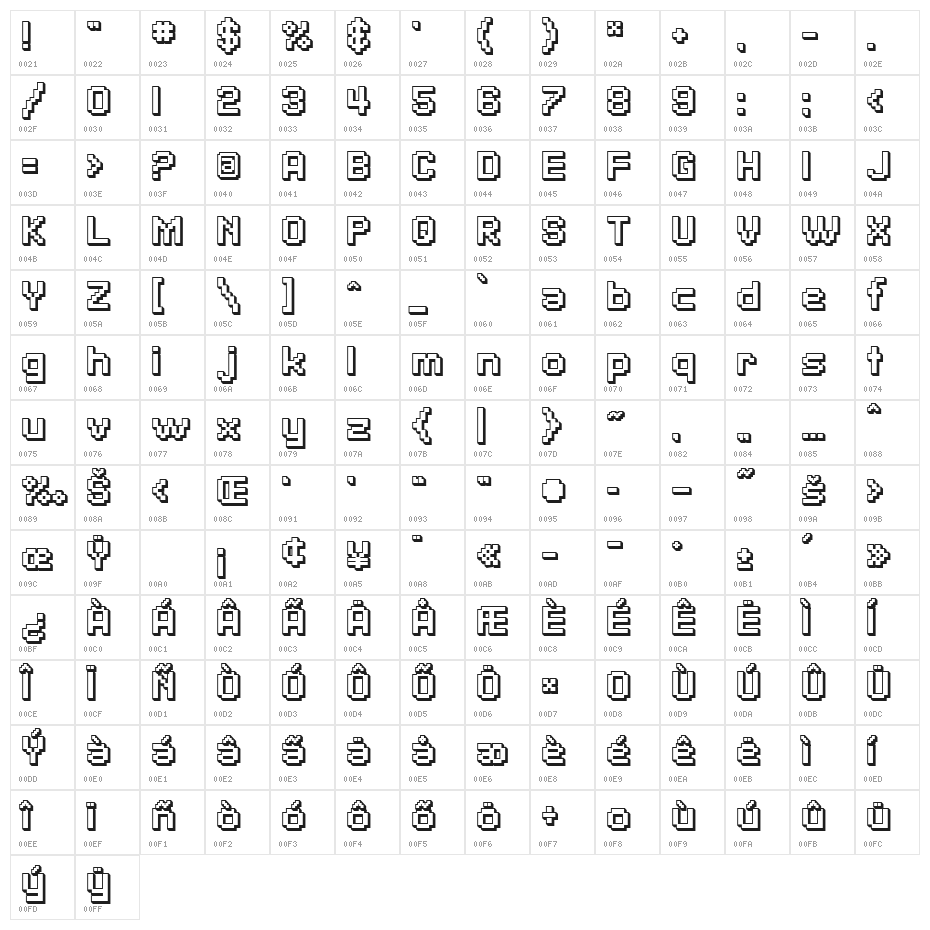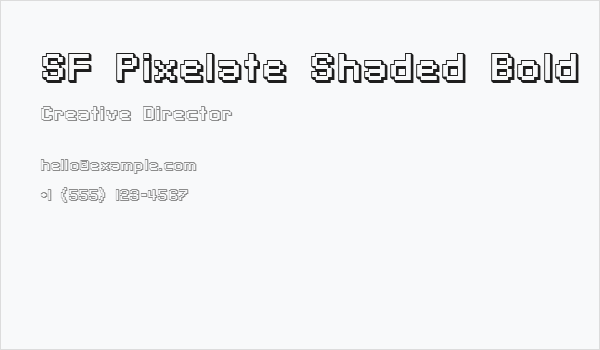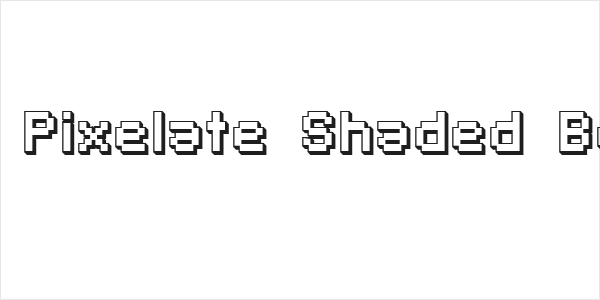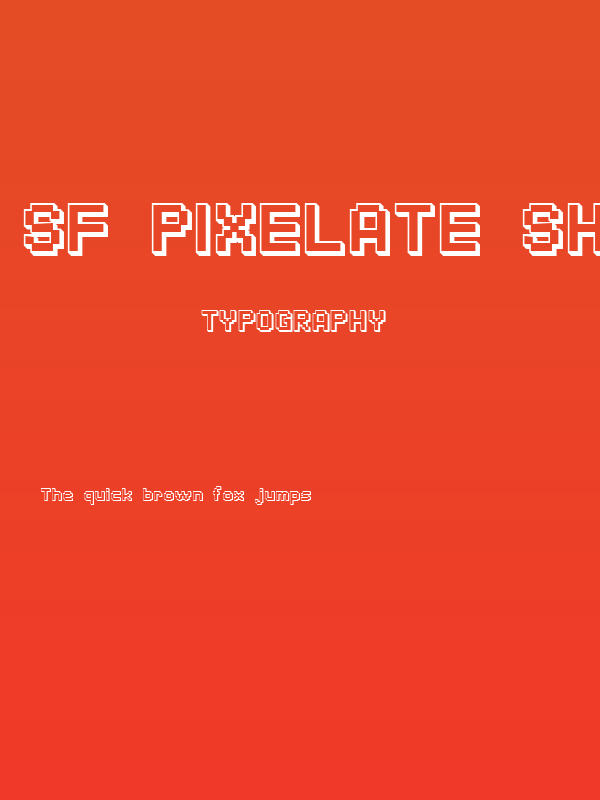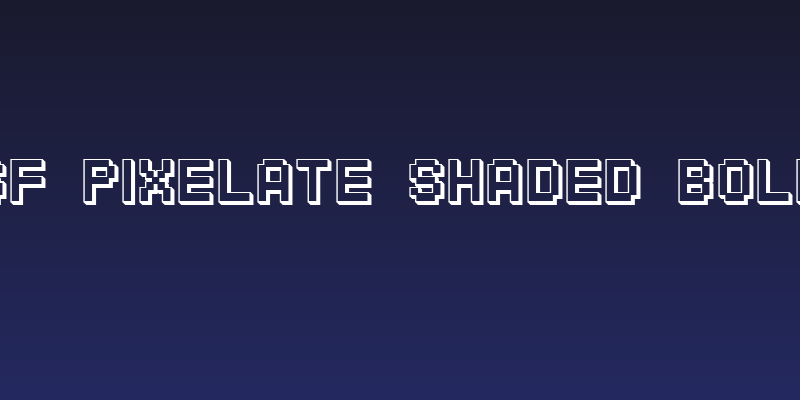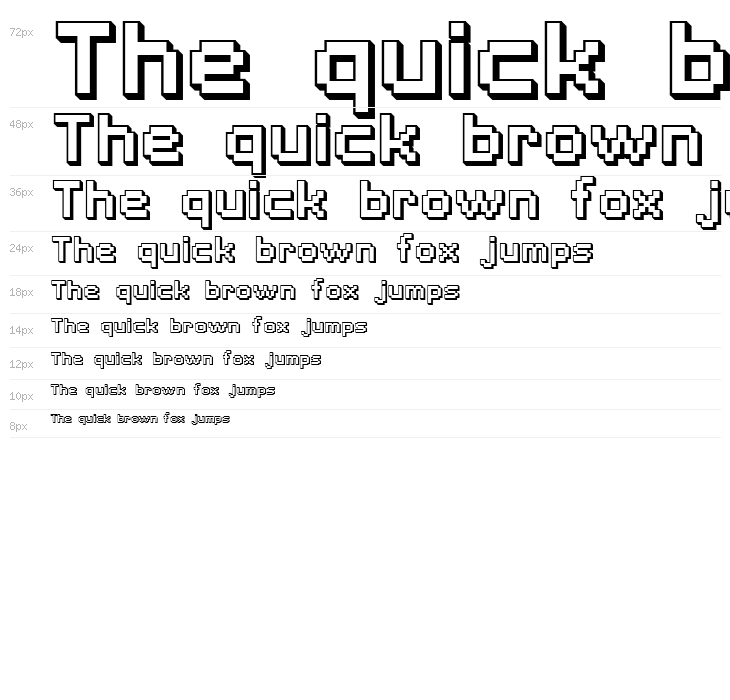
SF Pixelate Shaded Bold Font
SF Pixelate Shaded Bold Description
This font features a bold, pixelated design with a shaded effect that gives it a three-dimensional appearance. The characters are constructed with a blocky, grid-like structure, reminiscent of classic video game graphics. Each letter and number is outlined with a thick border, enhancing the boldness and visibility. The shading adds depth, making the characters stand out against various backgrounds. This style is both playful and retro, capturing the essence of early digital typography while maintaining a modern edge.
| Overall Style | Retro, Playful |
| Proposed Projects | Ideal for video game designs, retro-themed posters, digital art projects, and any creative work that requires a nostalgic, pixelated aesthetic. |